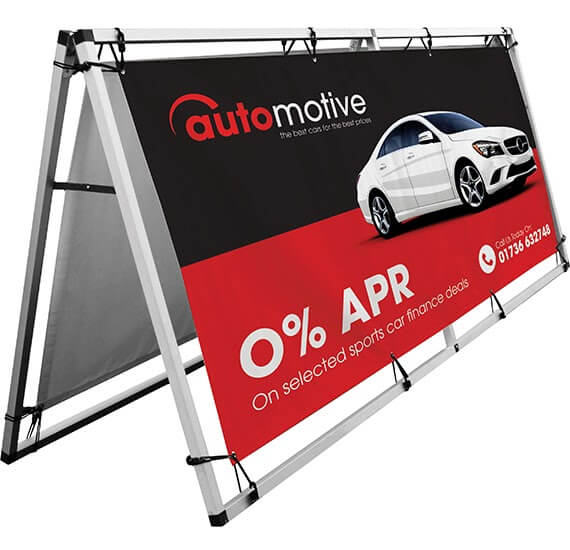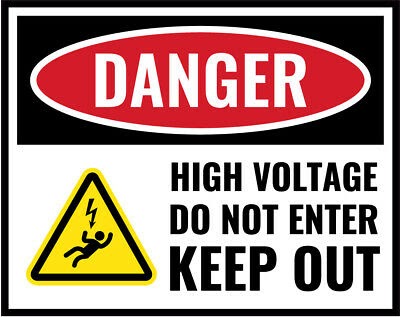
Choosing the Right Font for Your Signage
The font you choose to use on your signage could make a significant difference to how your message is conveyed and interpreted.
The style of font or typeface can say a lot about the business and it’s personality, as well as how the message will be received and actioned by those it’s aimed at.
So, where is the best place to start?
Uppercase or Lowercase?
Typically, lowercase text is more effective for being able to take in and understand information quickly.
As a result, lowercase is usually the preferred choice for signs where the audience may not be stationary such on forecourts, in shopping centres or on escalators.
banner frame automotive
Similarly though, uppercase text has an important part to play in signage.
Uppercase tends to convey authority so it’s best used for warning signs or instruction signs.
Danger sign
Serif or Sans Serif?
A serif is the little flick or angled line projecting from the upper and lower ends of the letter. Serif fonts are typically the easiest to read as these ‘tails’ help the reader to flow onto the next letter. For this reason, serif fonts are commonly used in scenarios where a large amount of text is required.
Serif Fonts
Sans serif fonts (French for “without serifs”) are seen as more modern as they are cleaner and sharper. Sans serif text is easy to read, particularly when the font is large and contains few words. So for large signs, san serif is the best choice.
San Serif Fonts
It’s so important to consider the spacing of letters on signage. If the letters are too close together, it’ll be hard to read - whatever the size of sign. Giving letters space will drastically improve its readability, as well as make it look more professional.